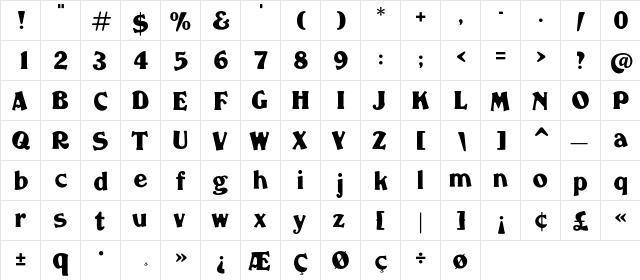
Fancy Extended
Design Context for Fancy Typeface
Fancy is a composed and adaptable typeface that performs quietly and consistently across a wide range of design contexts.